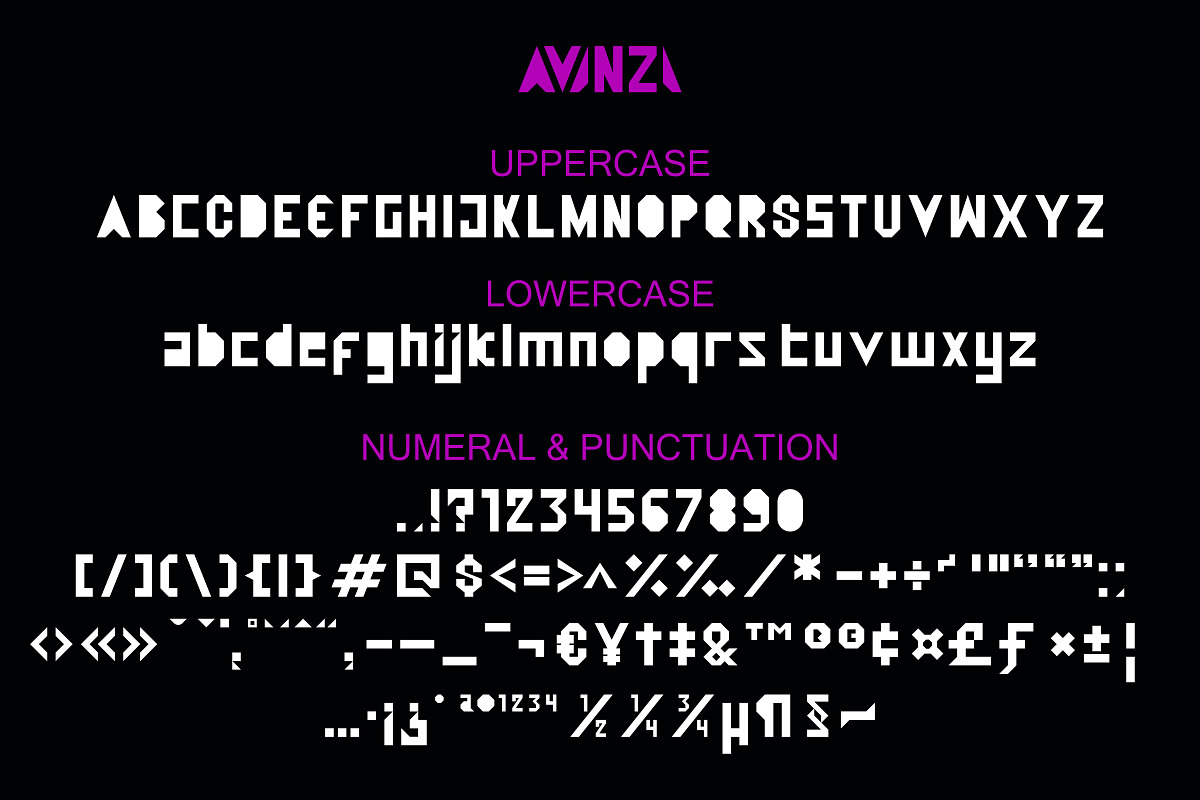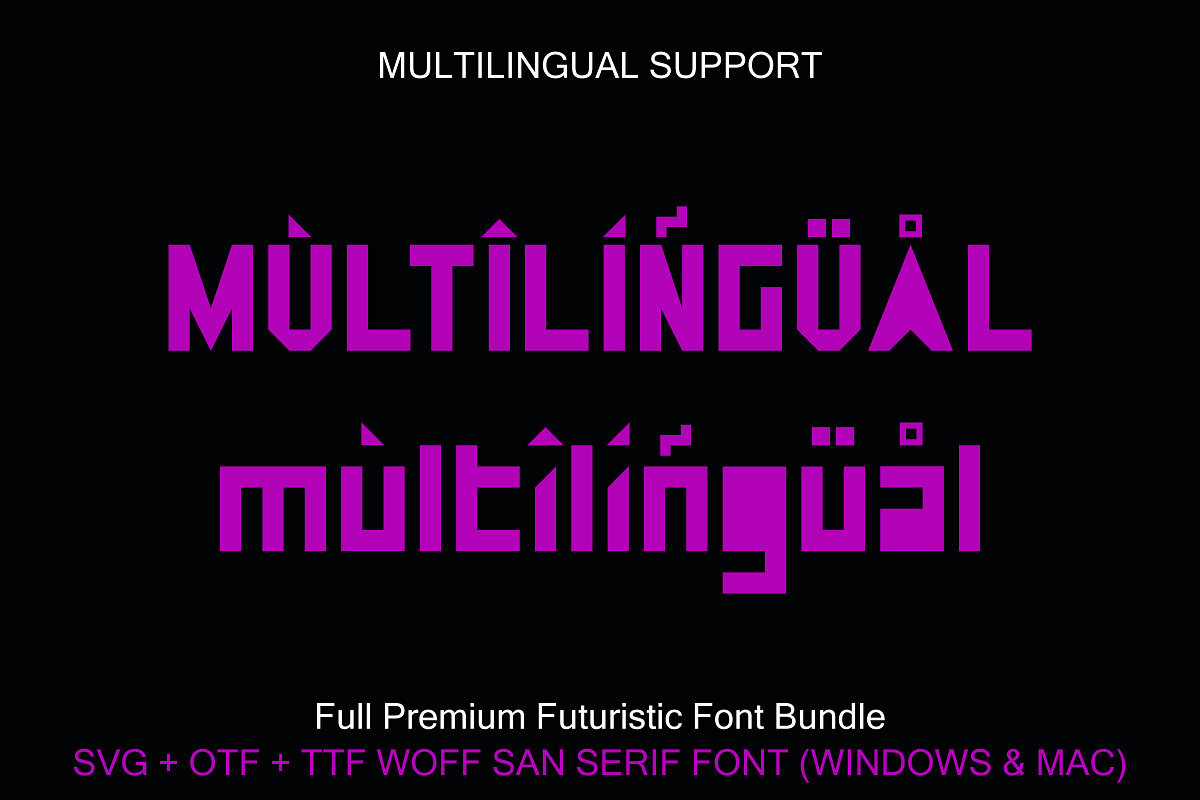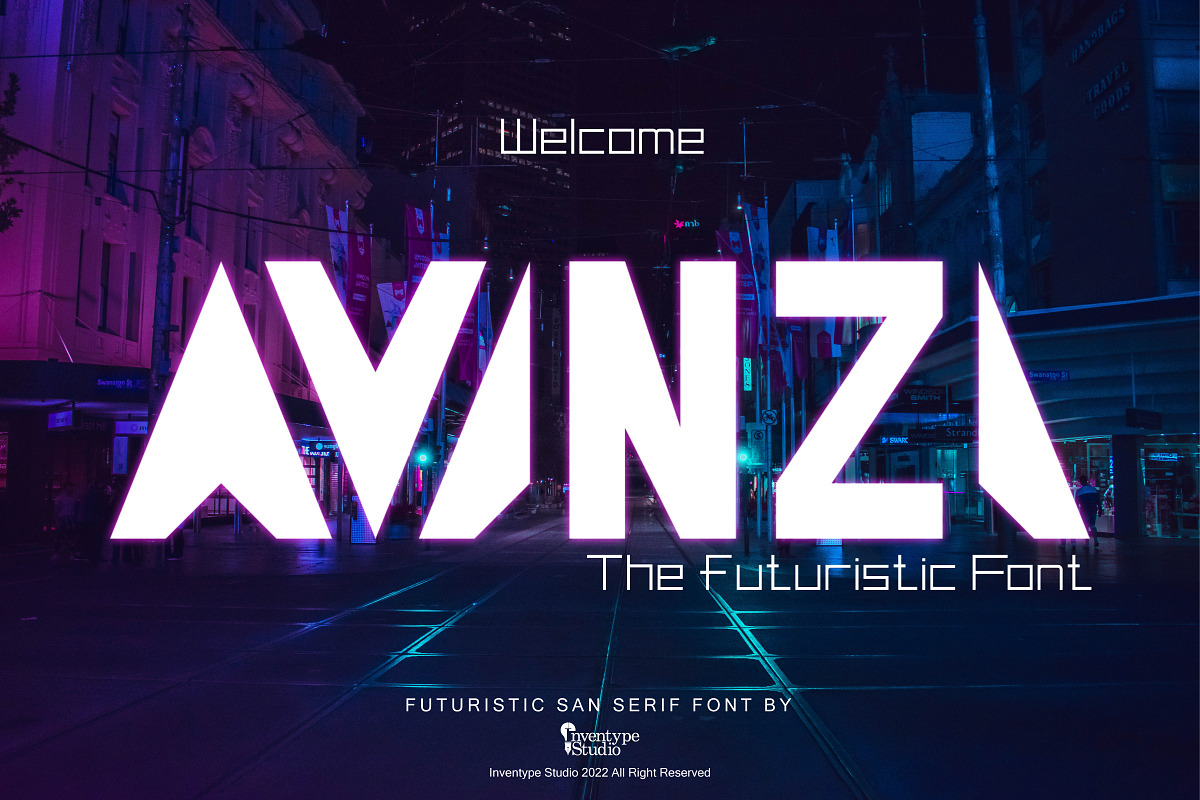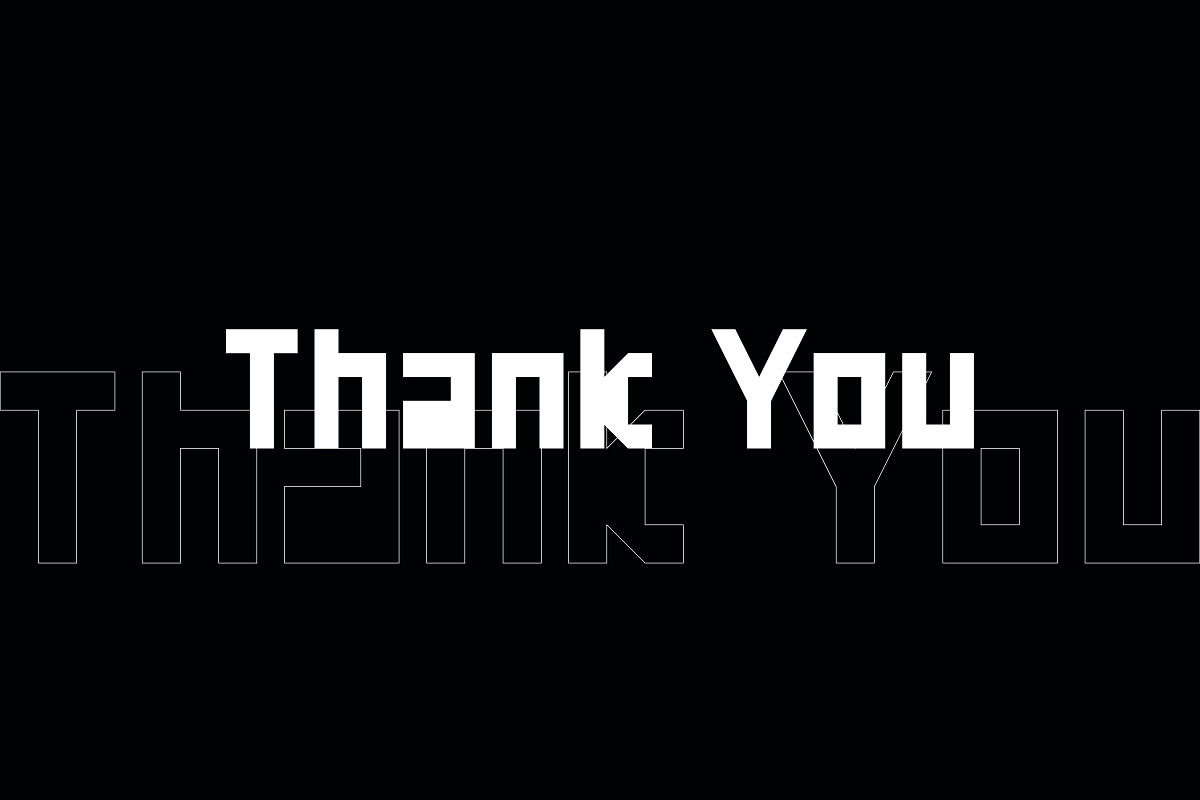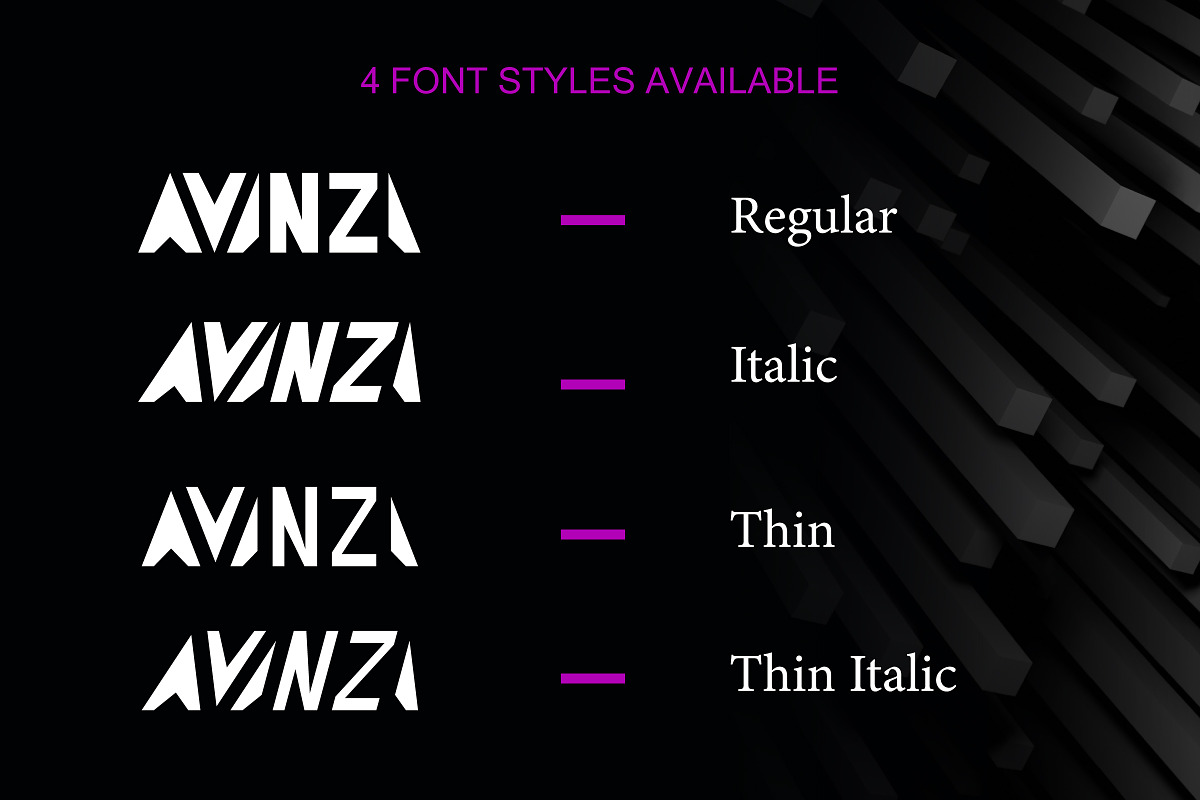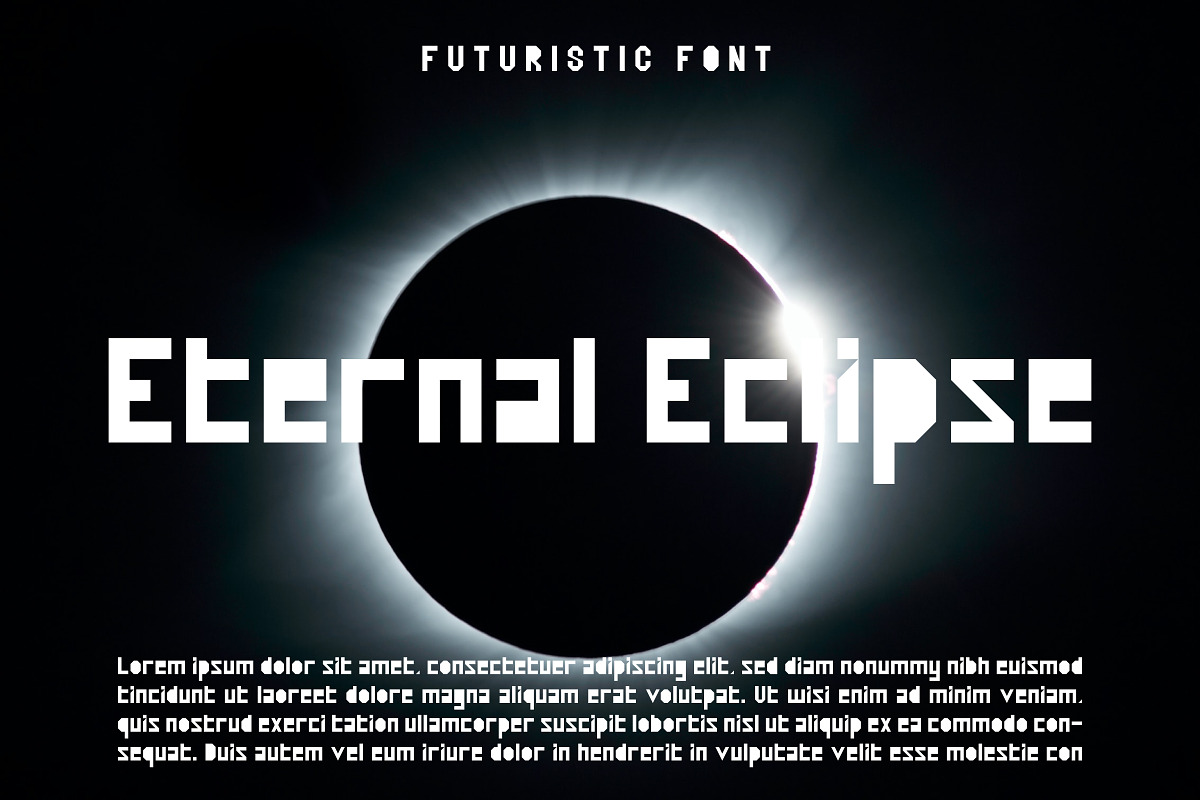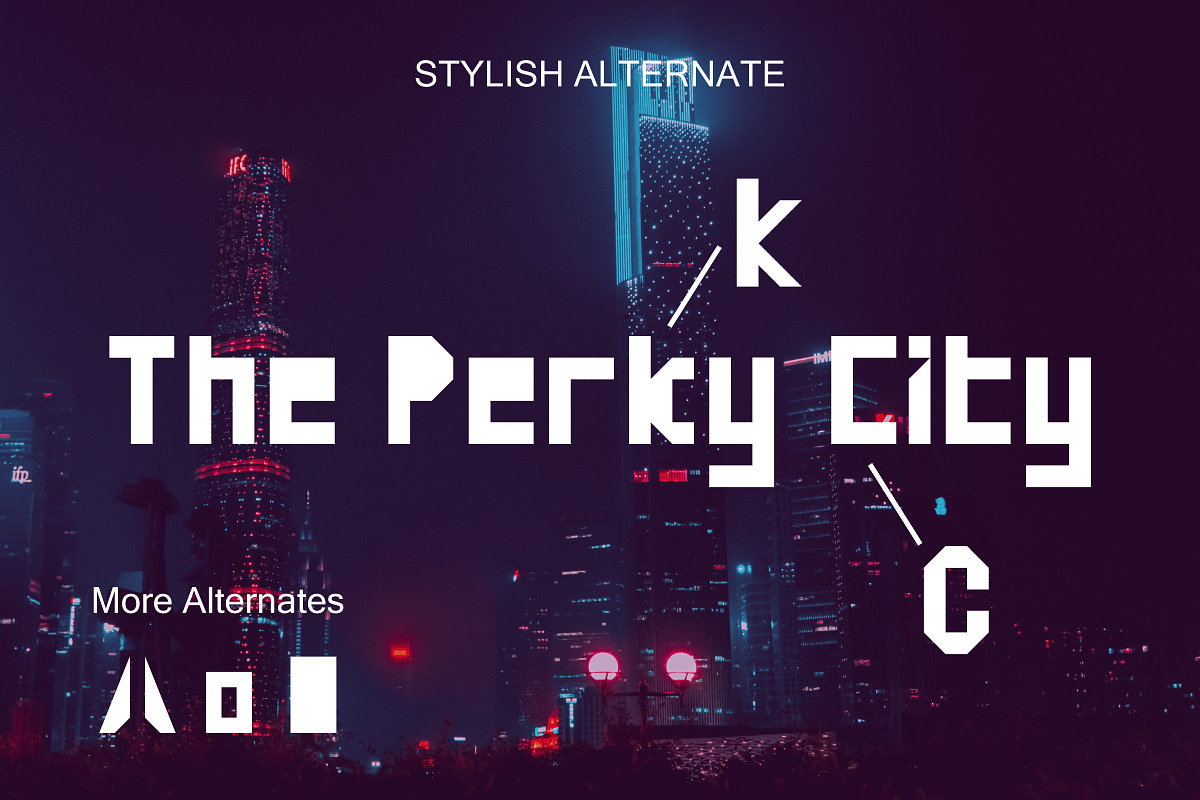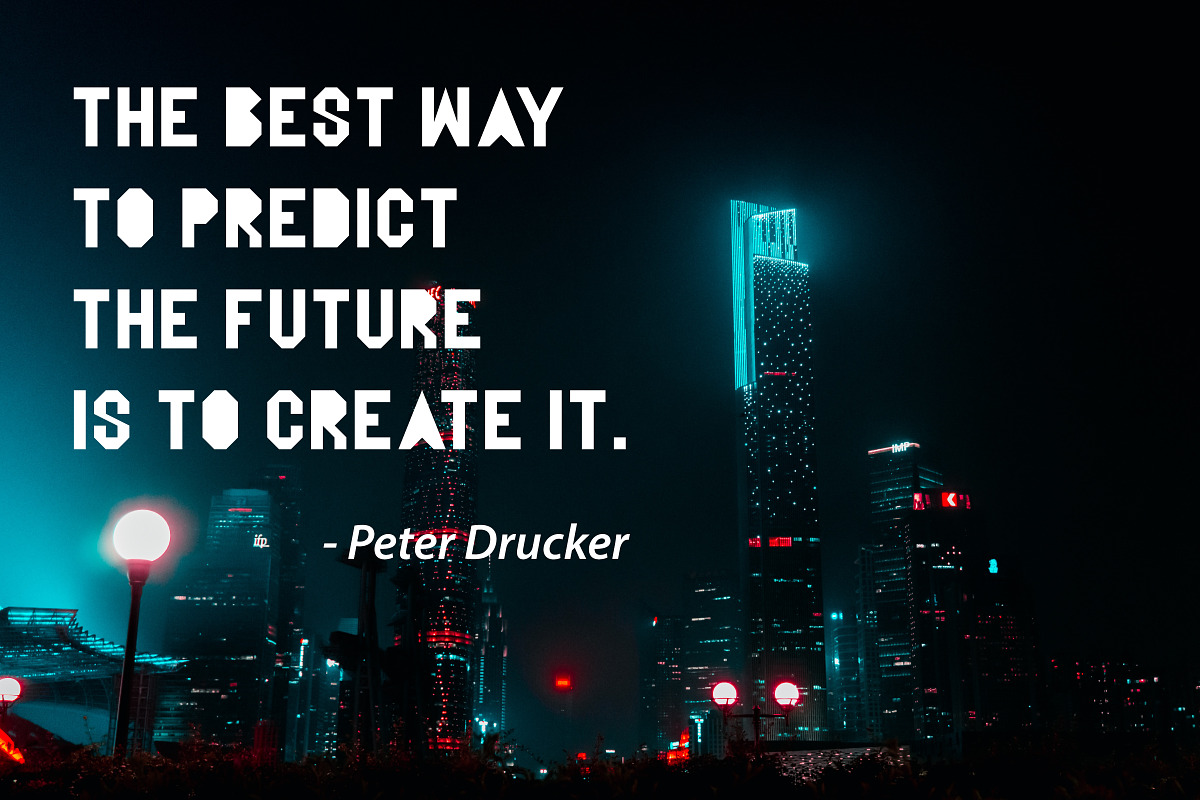
AVANZA Futuristic Display San
AVANZA is a futuristic font inspired by one of futuristic city in this world. This font is based on square shape that reflect sophistication and modernity. It will bring futuristic teste to your design project.
AVANZA is future-forward typeface. It is full of futuristic sci-fi vibes with high clarity. Perfect as a poster, title, wordmark, headlines and many more.
- Ton of glyphs (include Uppercase, Lowercase, Numerals & Punctuations, and available in Multilingual) Works on PC & Mac
- 4 font styles (Regular, Italic, Thin & Thin Italic)
- Stylish Alternate
Digital san serif font - AVANZA Commercial Font is a futuristic display san style. Beautiful on invitation like greeting cards, branding materials, business cards, quotes, posters, Cricut artwork and more!